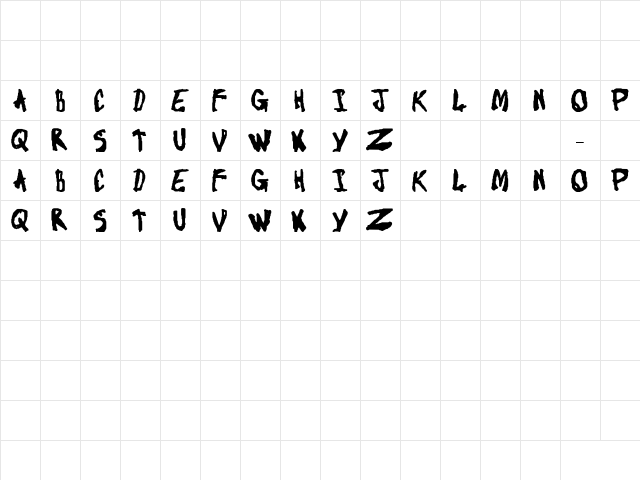
Evil Dead Regular Font Preview
Evil Dead Regular
Design Context for Evil Dead Typeface
Evil Dead is a composed and adaptable typeface that performs quietly and consistently across a wide range of design contexts.